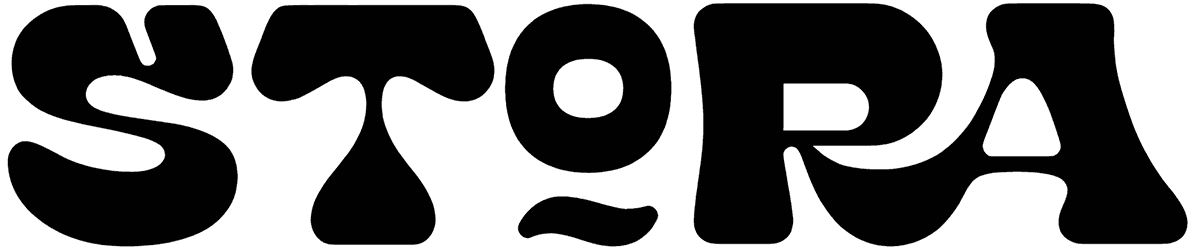
Stora Font
Timeless, remarkable, jauntiness, and vivacity are the first impressions that immediately come to the audience’s minds after looking at your graphic content that is designed with the help of a chunky retro font such as Stora. This all-caps font can broaden your selection range by offering two distinctive styles.
This masterpiece can revolutionize all of your projects, such as animation posters, stickers, product packaging, or social media posts, and make them look much more interesting to the audience.